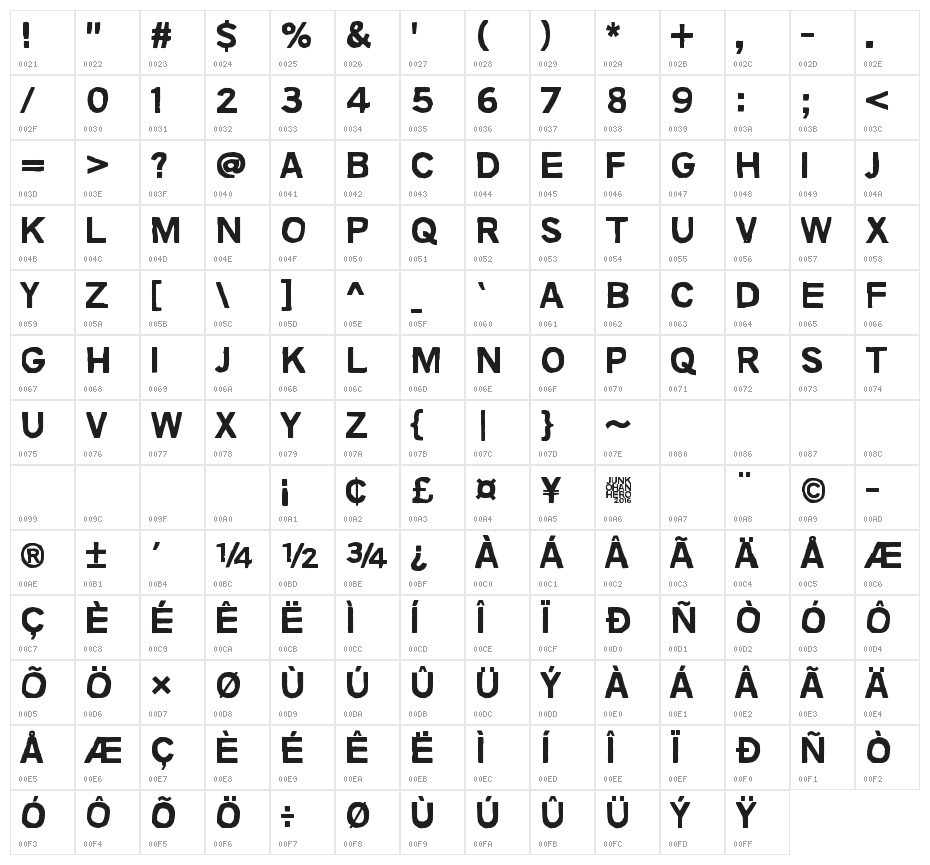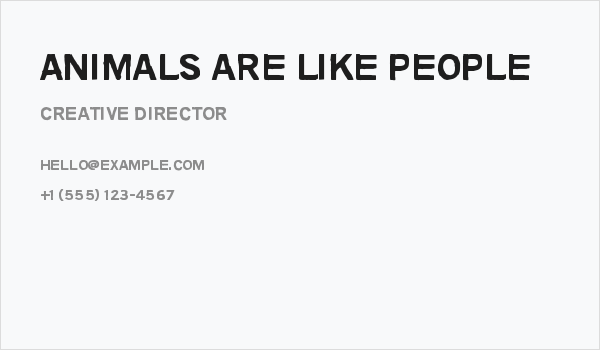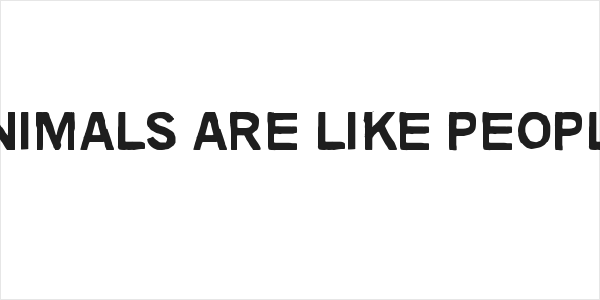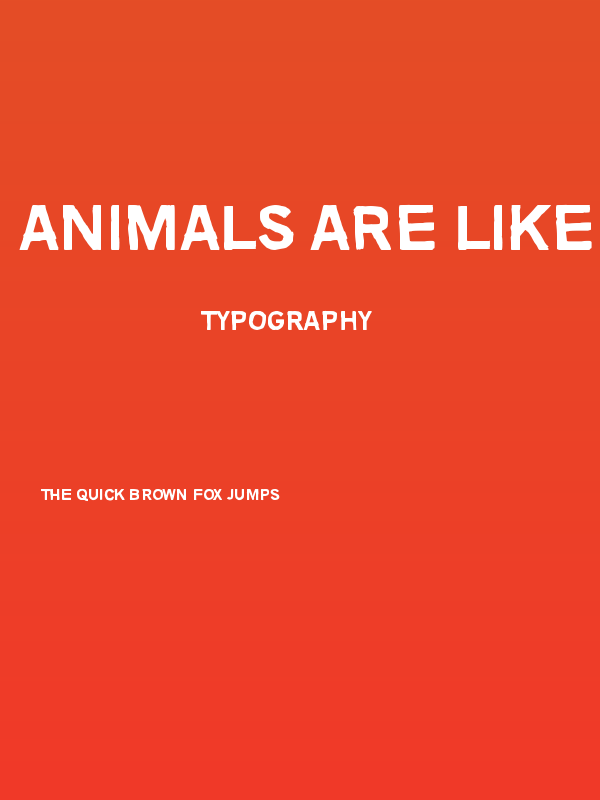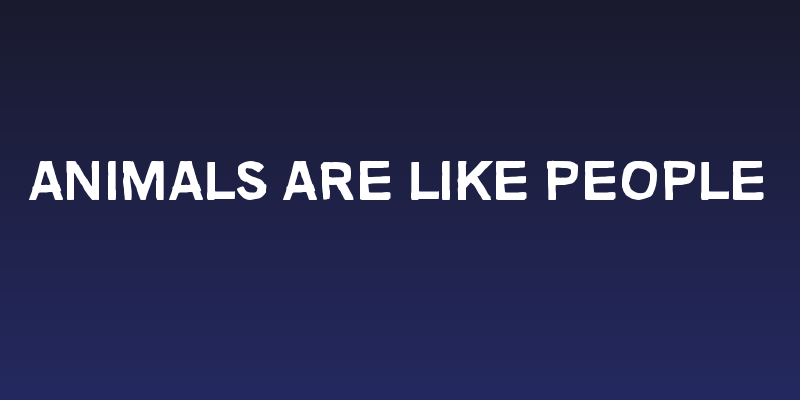
Animals are like people Font
Animals are like people Description
This font features a bold and rugged appearance, with a hand-drawn aesthetic that gives it a unique and organic feel. The characters are slightly irregular, adding to the font's charm and making it stand out. The uppercase letters are strong and assertive, while the lowercase letters maintain the same boldness with a slightly more playful touch. Numbers and special characters follow the same style, ensuring consistency throughout. The font's thick strokes and uneven edges suggest a sense of authenticity and creativity, making it ideal for projects that require a personal or artistic touch.